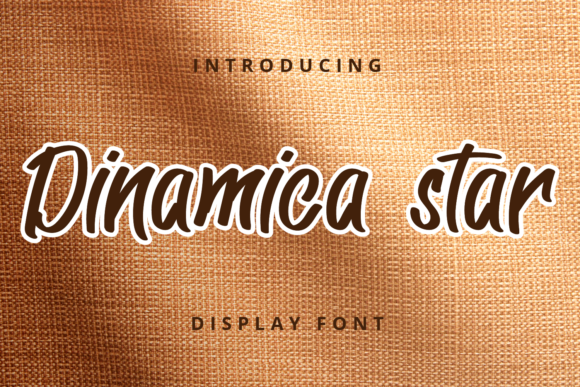
Dinamica Star Font: The Perfect Handwritten Font for Your Creative Projects
Are you looking for a font that can add a touch of personality and whimsy to your creative projects? Look no further than the Dinamica Star Font. This casual and friendly handwritten font is perfect for a variety of uses, from crafting and digital designing to presentations and greeting cards making.
What is Dinamica Star Font?
Dinamica Star Font is a type of handwritten font that is designed to look like it was written with a pen or pencil. It has a casual and relaxed feel, making it perfect for projects that require a personal touch. The font is characterized by its irregular letterforms, varying line widths, and playful flair.
Features of Dinamica Star Font
So, what makes Dinamica Star Font so special? Here are just a few of its key features:
- Casual and friendly: Dinamica Star Font has a warm and approachable feel that makes it perfect for projects that require a personal touch.
- Handwritten: The font is designed to look like it was written by hand, giving it a unique and organic feel.
- Versatile: Dinamica Star Font can be used for a wide range of projects, from crafting and digital designing to presentations and greeting cards making.
- Easy to read: Despite its casual feel, Dinamica Star Font is still easy to read, making it perfect for projects that require a lot of text.
Uses of Dinamica Star Font
So, what can you use Dinamica Star Font for? The possibilities are endless, but here are a few ideas to get you started:
Crafting
Dinamica Star Font is perfect for crafting projects, such as scrapbooking, journaling, and card making. Its casual and friendly feel makes it a great choice for adding a personal touch to your crafts.
Digital Designing
Dinamica Star Font is also great for digital designing, such as creating social media graphics, blog posts, and website headers. Its playful feel makes it a great choice for adding some personality to your designs.
Presentations
If you’re looking for a font to use in your presentations, Dinamica Star Font is a great choice. Its casual feel makes it perfect for adding a touch of personality to your slides, while its ease of reading ensures that your message gets across clearly.
Greeting Cards Making
Finally, Dinamica Star Font is perfect for making greeting cards. Its playful feel makes it a great choice for adding a personal touch to your cards, while its ease of reading ensures that your message gets across clearly.
Benefits of Using Dinamica Star Font
So, why should you use Dinamica Star Font for your creative projects? Here are just a few benefits:
- Adds a personal touch: Dinamica Star Font adds a personal touch to your projects, making them feel more unique and special.
- Versatile: Dinamica Star Font can be used for a wide range of projects, making it a great addition to your font library.
Tips and Tricks
Here are a few tips and tricks for using Dinamica Star Font:
- Use it sparingly: While Dinamica Star Font is a great font, it can be overwhelming if used too much. Use it sparingly to add a touch of personality to your projects.
- Pair it with other fonts: Dinamica Star Font pairs well with other fonts, such as sans serif fonts and script fonts. Experiment with different pairings to find the one that works best for your project.
- Adjust the size: Dinamica Star Font can be a bit large, so adjust the size to fit your project. A smaller size can be great for body text, while a larger size can be used for headings.
In conclusion, Dinamica Star Font is a great choice for anyone looking to add a touch of personality to their creative projects. Its casual and friendly feel makes it perfect for a wide range of uses, from crafting and digital designing to presentations and greeting cards making. With its ease of use and versatility, Dinamica Star Font is a great addition to any font library.